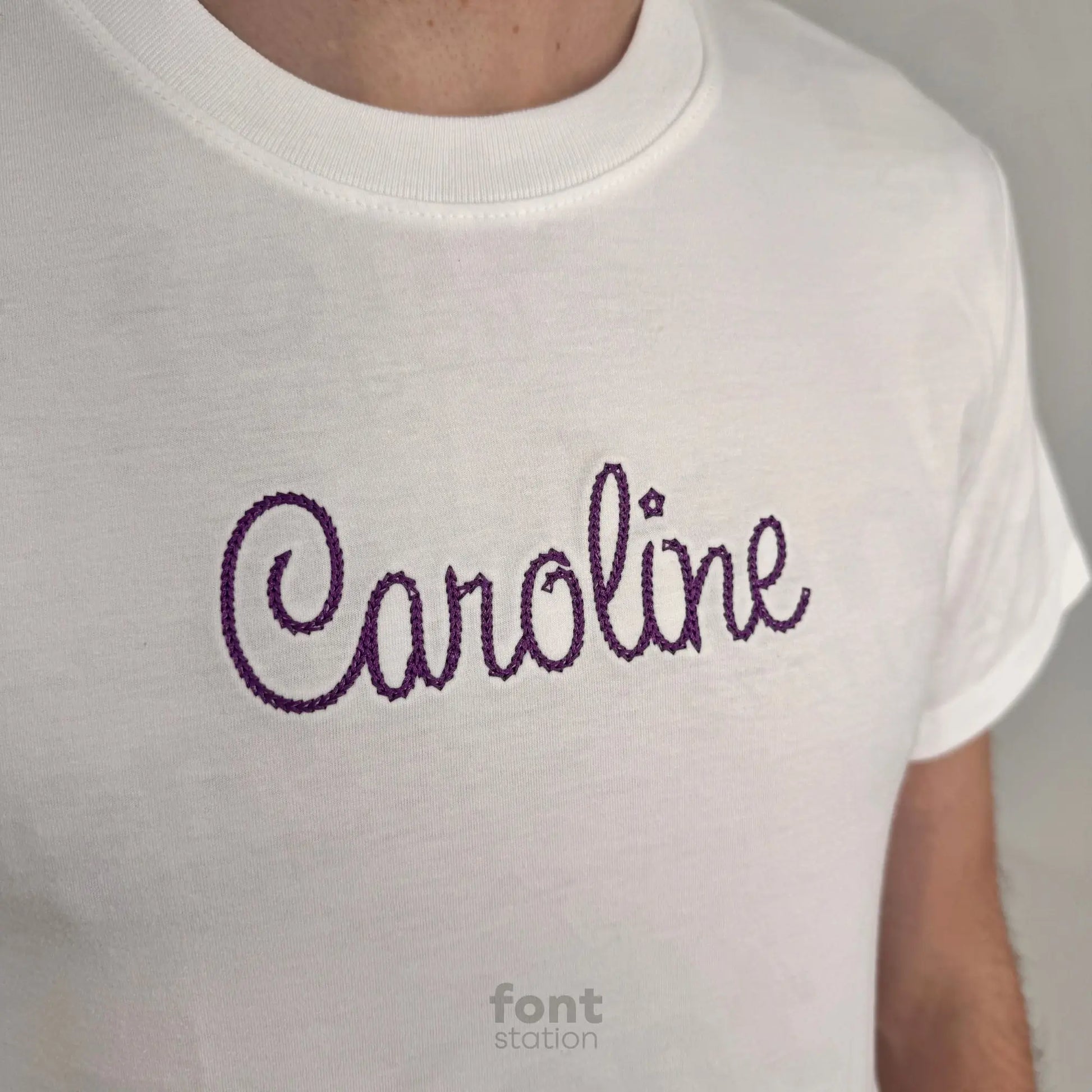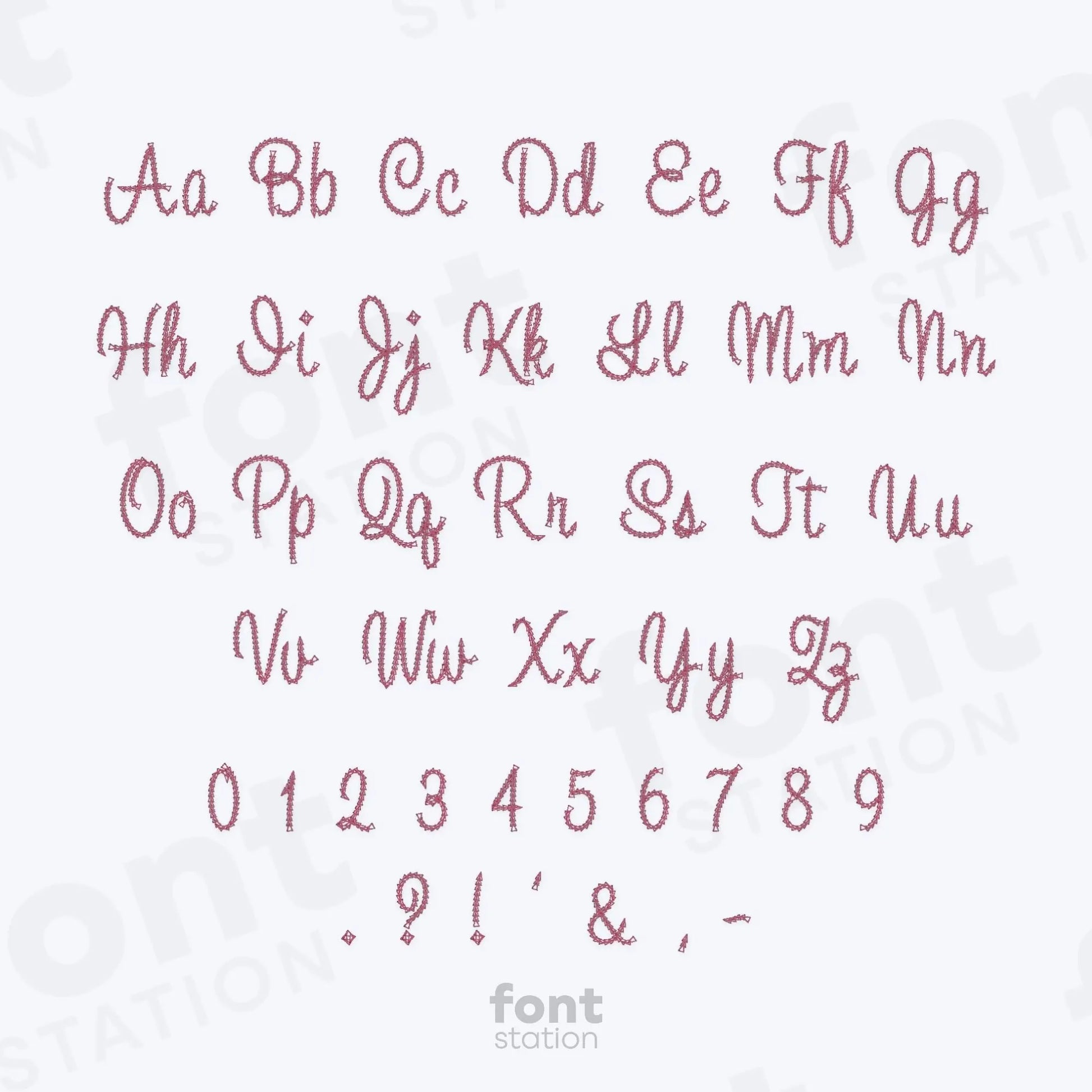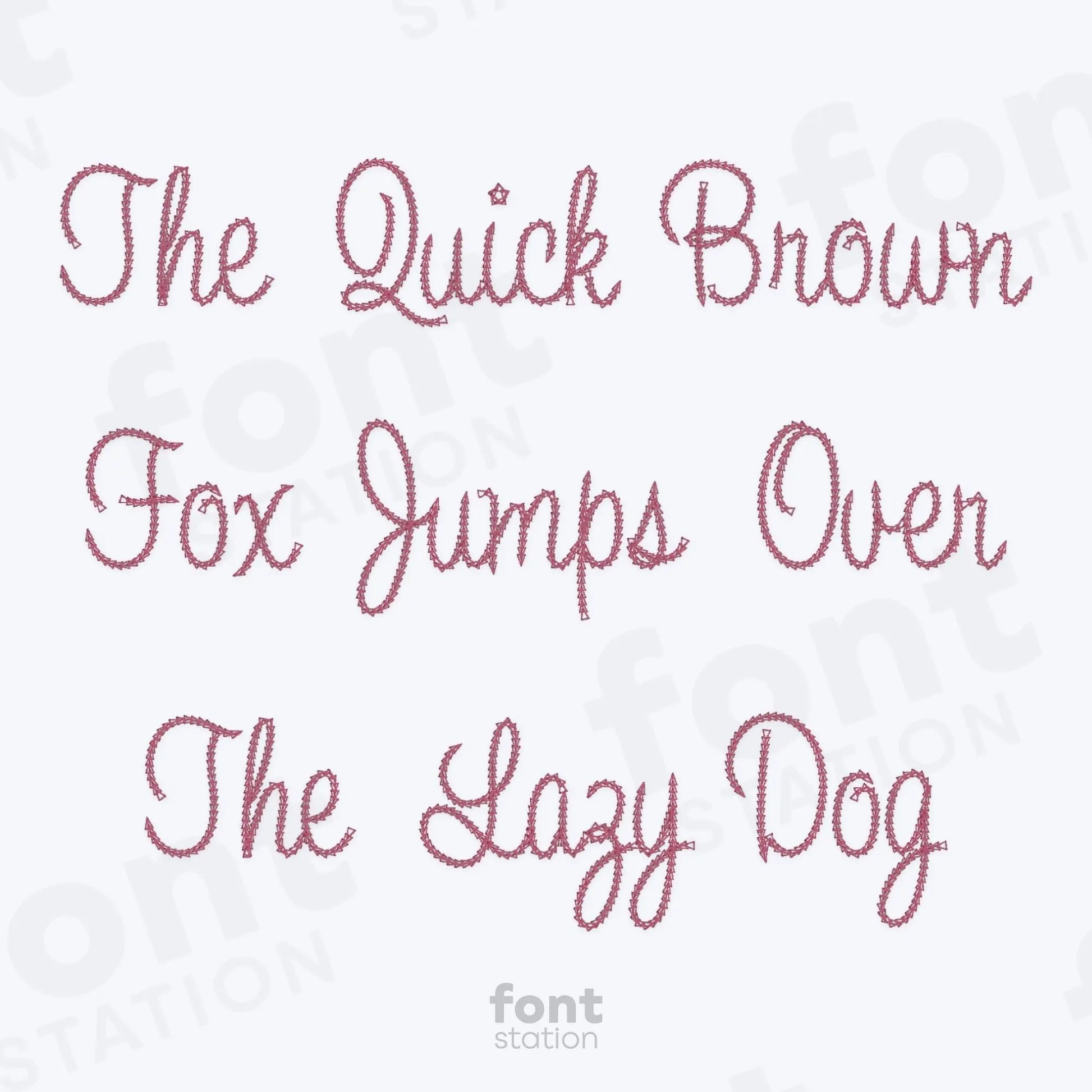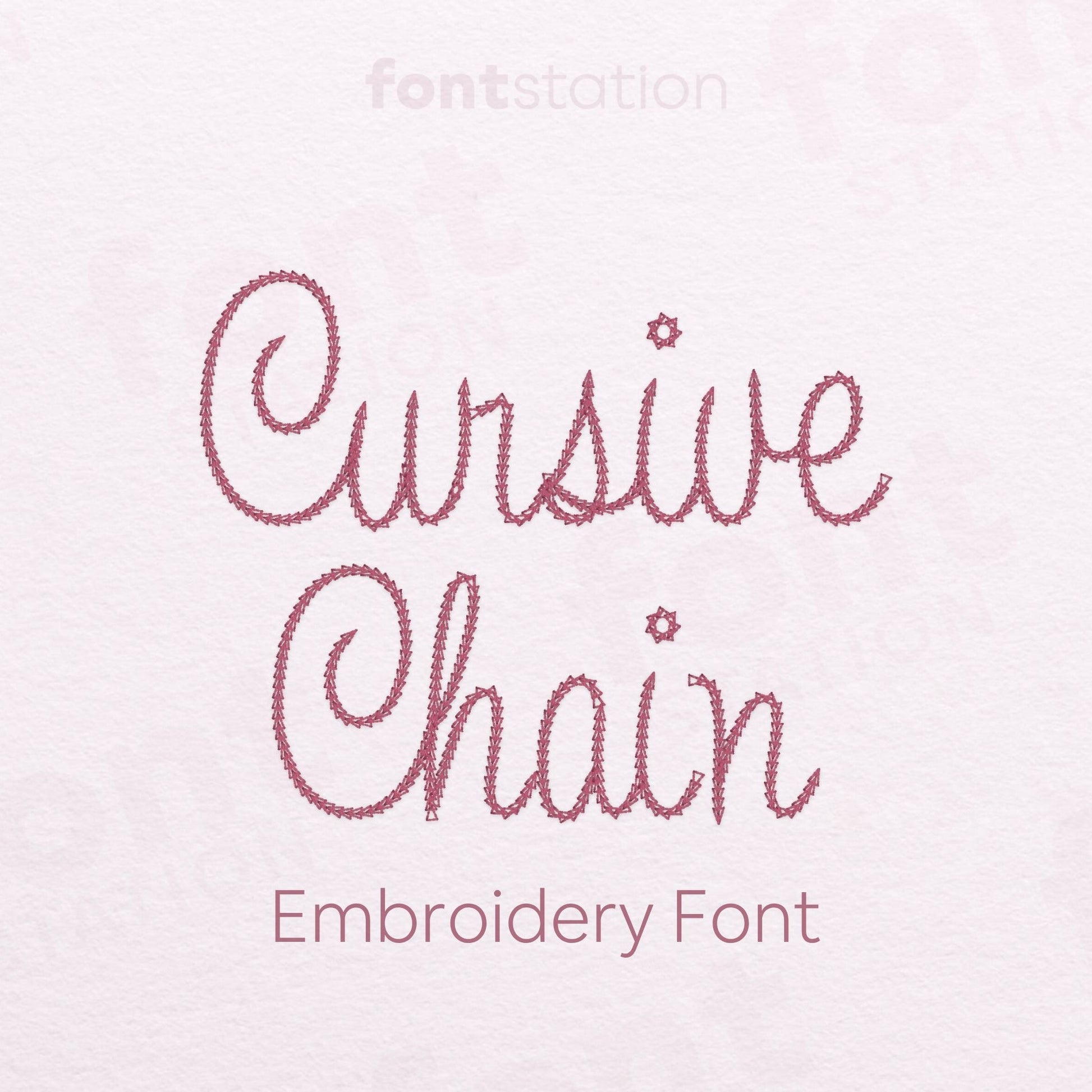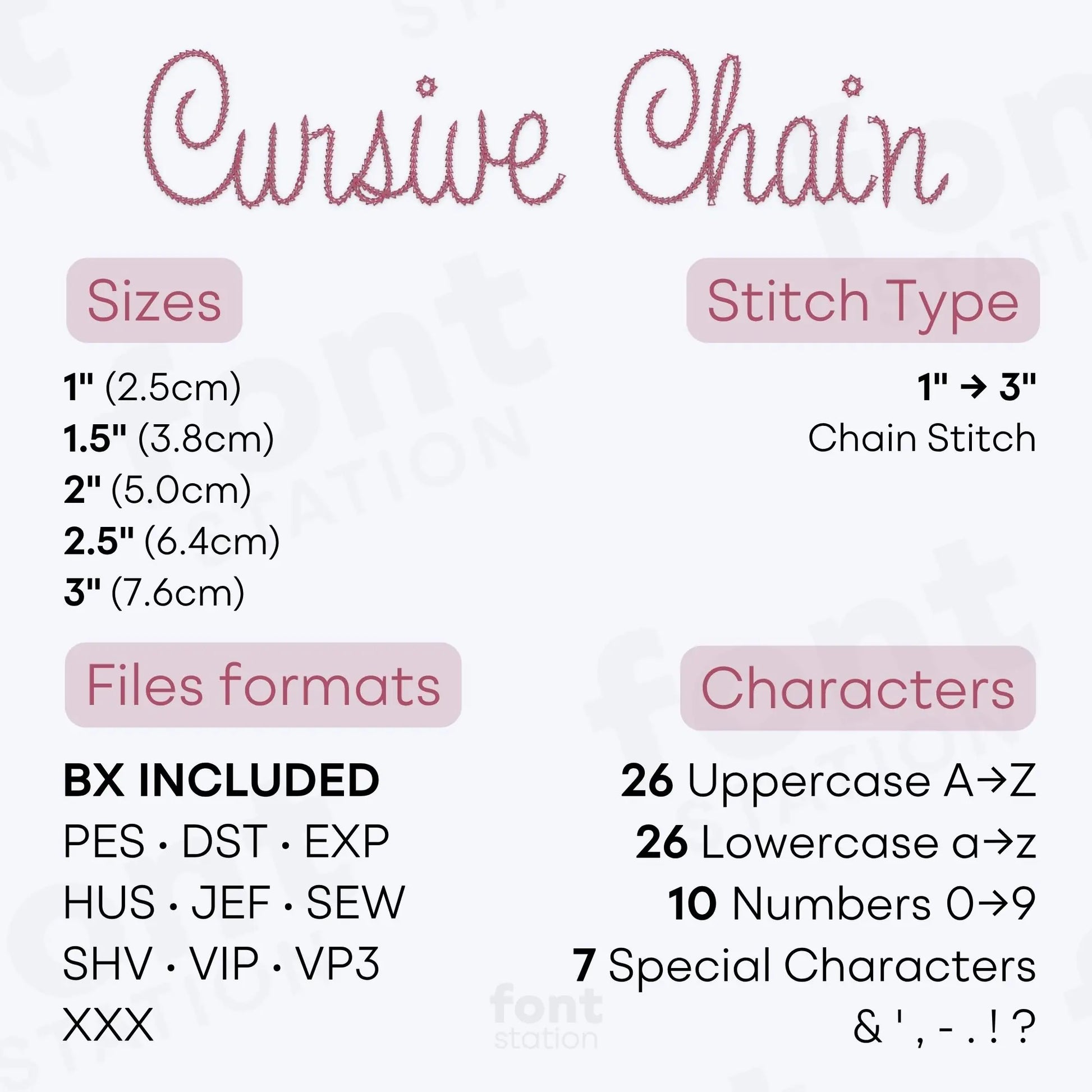
Cursive Chain Embroidery Font
Introducing our Cursive Chain embroidery font, a thin chain stitch alphabet with elegant letters that stitch beautifully on your embroidery machine. Perfect for delicate designs and any refined project.
About the Cursive Chain Embroidery Font
Chain Stitch: 1", 1.5", 2", 2.5" y 3"
Characters: 26 uppercase, 26 lowercase, 10 numbers y symbols & ' , - . ! ?
Our Cursive Chain embroidery font brings a delicate chain stitch look to your embroidery projects.
This elegant machine embroidery font features a flowing cursive alphabet with thin, hand-stitched letters designed to mimic the beautiful texture of traditional chain stitch embroidery. Perfect for names, boutique labels, minimalist details, and refined embroidery designs, it adds a handcrafted, artistic touch to every project.